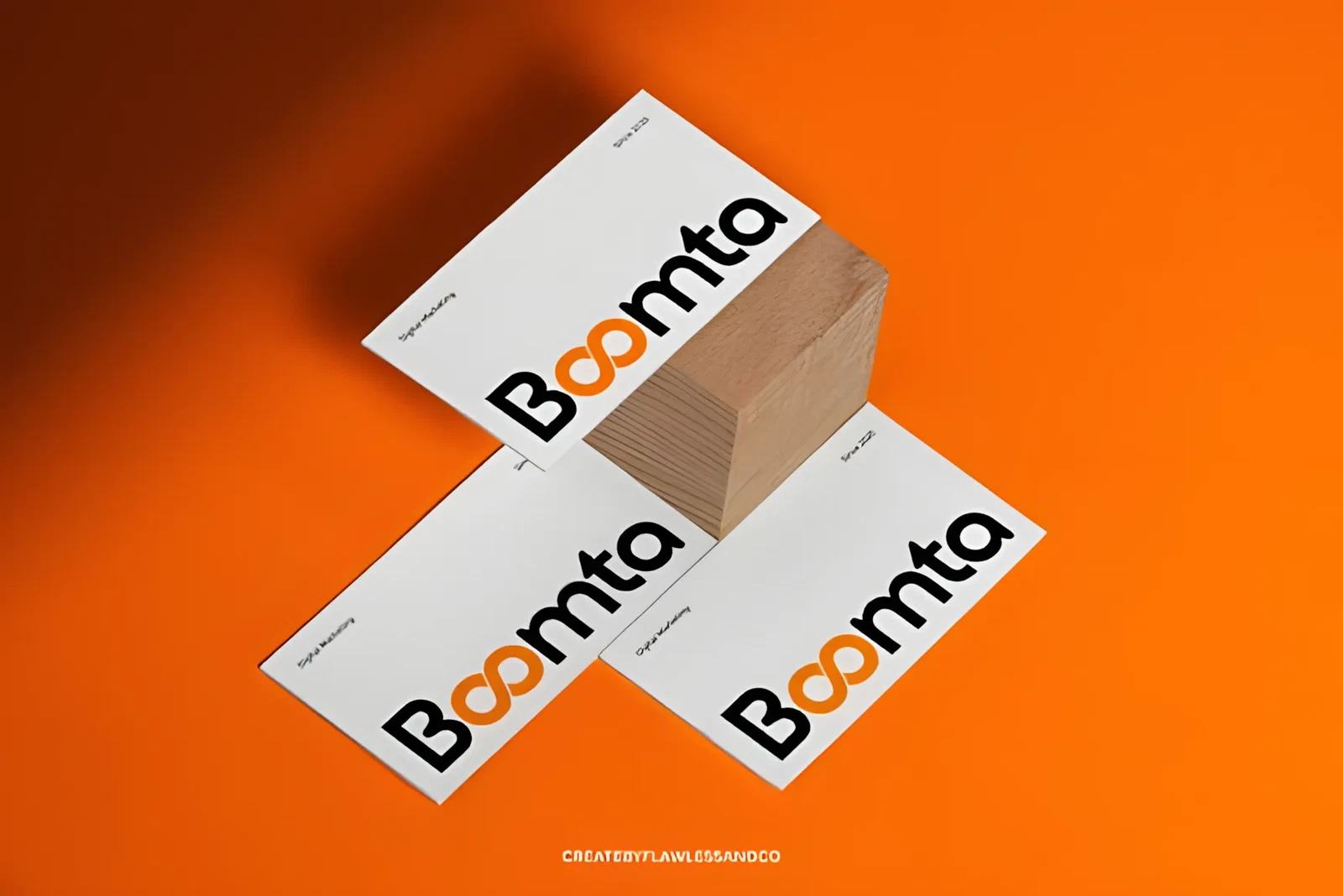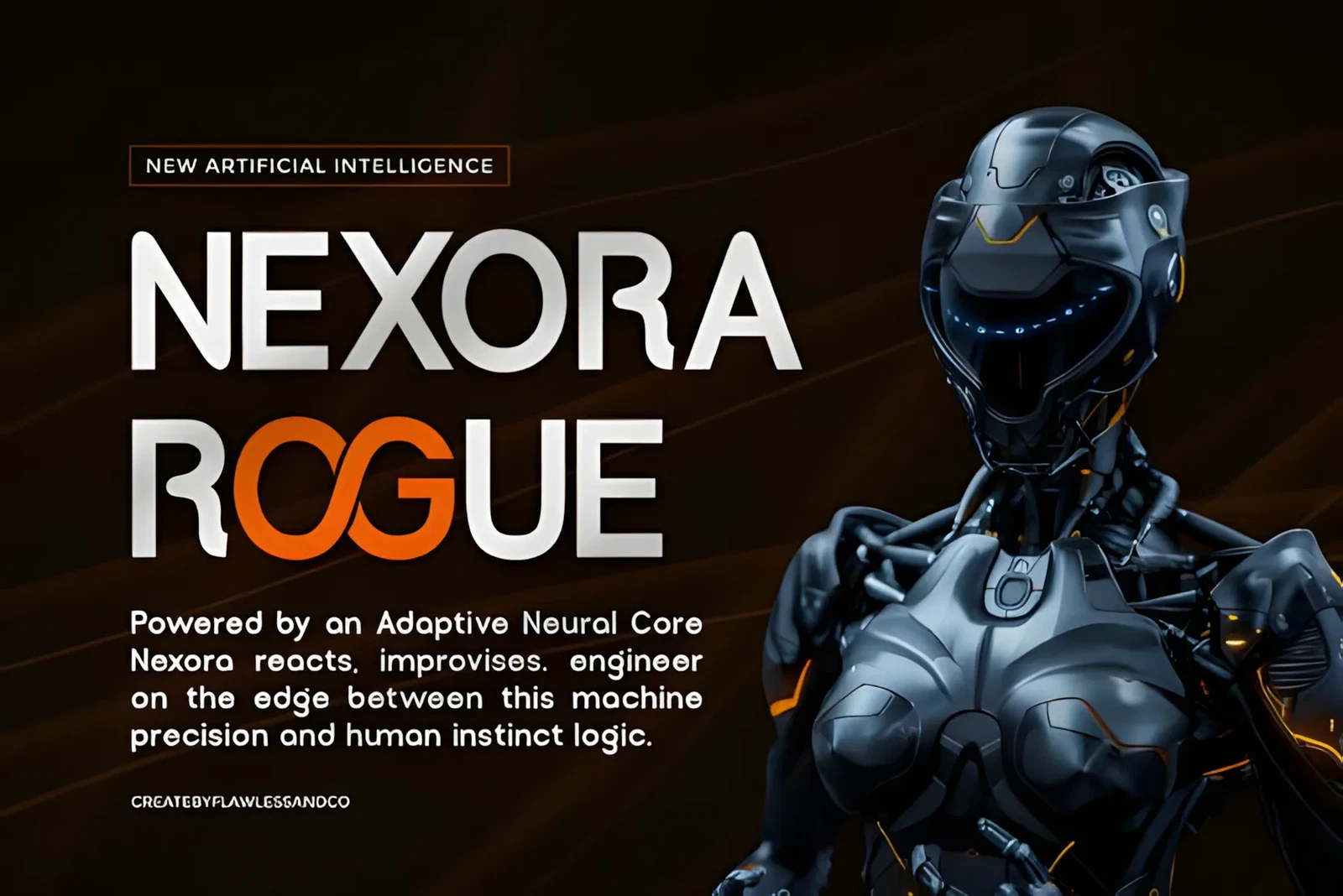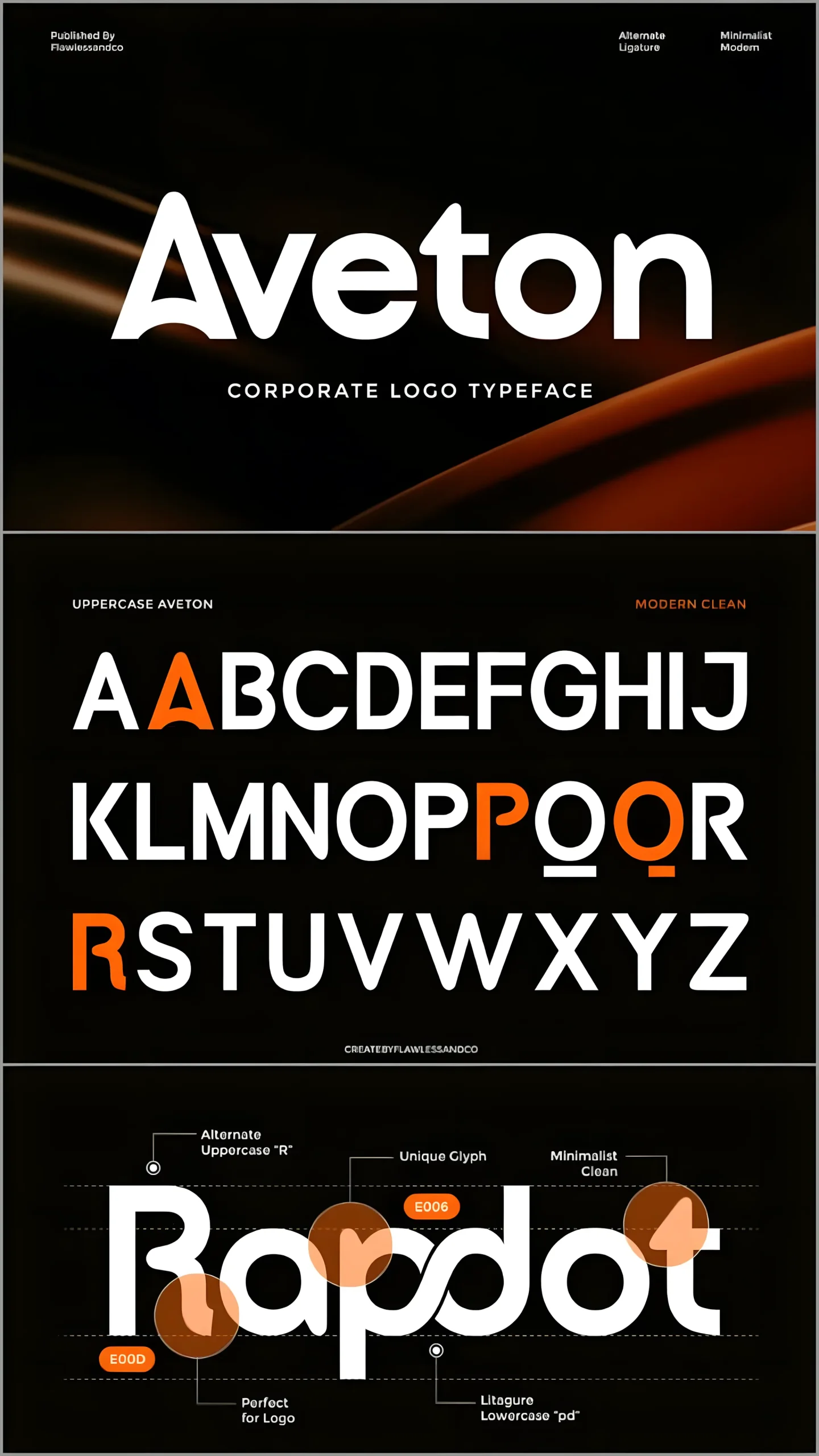
Typography plays a critical role in how a brand is perceived. Aveton Font is designed specifically for professional environments where clarity, confidence, and modern aesthetics matter. This sans-serif typeface is built for corporate logos, brand identities, and visual systems that need to look polished, reliable, and timeless.
Aveton does not rely on trends or decorative effects. Instead, it focuses on structure, balance, and clean geometry, making it a strong choice for businesses and designers who value long-term usability.
A Typeface Created for Professional Branding
Aveton is a modern sans-serif font with a strong corporate character. Its clean lines and smooth curves create a visual tone that feels both bold and refined. The design avoids unnecessary complexity, allowing brand messages to remain clear and authoritative.
This font is especially well suited for brands that want to communicate:
- professionalism
- innovation
- trust and stability
- modern corporate identity
The overall impression is confident without being aggressive.
Visual Structure and Letterform Design
The letterforms in Aveton are carefully balanced. Each character maintains consistent proportions, which helps text feel organized and easy to scan. Rounded details soften the geometry just enough to prevent the font from feeling cold or mechanical.
Key visual characteristics include:
- clean sans-serif construction
- smooth curves paired with sharp clarity
- balanced spacing for readability
- strong presence in uppercase text
This makes Aveton especially effective for logos and headlines where first impressions matter.
Where Aveton Performs Best
Corporate Logos and Brand Marks
Aveton was designed with logo usage in mind. Its structure allows brand names to appear strong and recognizable without relying on additional graphic elements. It works well for:
- corporate logos
- startup branding
- company wordmarks
- professional brand systems
The font maintains clarity at both large and small sizes, which is essential for multi-platform branding.
Marketing and Presentation Design
In marketing materials, Aveton delivers clarity and authority. It fits naturally into:
- presentations
- pitch decks
- brochures
- business-focused advertising
Its modern appearance supports visual consistency across print and digital formats.
Digital and Web Use
Aveton performs well on screens thanks to its clean geometry and readable spacing. It can be used effectively in:
- website headers
- landing pages
- UI headlines
- digital brand assets
The font can also be easily converted into a webfont, making it suitable for modern digital workflows.
The font includes:
- uppercase and lowercase letters
- numbers and punctuation
- multilingual character support
- PUA-encoded glyphs
This makes it practical for both design and production environments.
Why Corporate Sans-Serif Fonts Remain Relevant
Corporate sans-serif fonts continue to dominate professional design because they emphasize clarity and reliability. Aveton fits squarely into this category, offering a modern look that does not age quickly.
Its strength lies in balance. It feels current without chasing trends, which allows brands to use it confidently over time.
Who Aveton Font Is Best For
Aveton is especially well suited for:
- branding and identity designers
- corporate and startup teams
- marketing professionals
- agencies and studios
- anyone building professional visual systems
It works equally well for logo creation and large-scale brand applications.
Final Perspective
Aveton Font is built for designers who value clarity, structure, and professionalism. Its clean sans-serif design, balanced letterforms, and corporate-friendly aesthetic make it a reliable foundation for modern branding and business communication.
For projects that require a confident, polished typographic voice without unnecessary decoration, Aveton offers a strong and timeless solution.